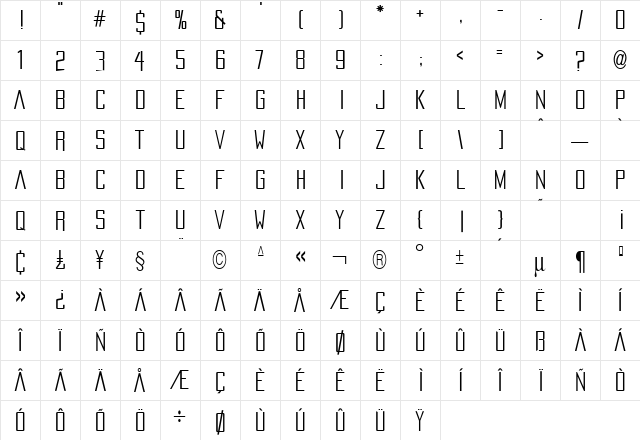
PacificaCondensed Medium
Design Context for PacificaCondensed Typeface
PacificaCondensed is a composed and adaptable typeface that performs quietly and consistently across a wide range of design contexts. The condensed width makes it efficient for tight spaces without sacrificing legibility.
Pro Tip: Pair PacificaCondensed with a font of contrasting weight or personality to build a more expressive typographic hierarchy.